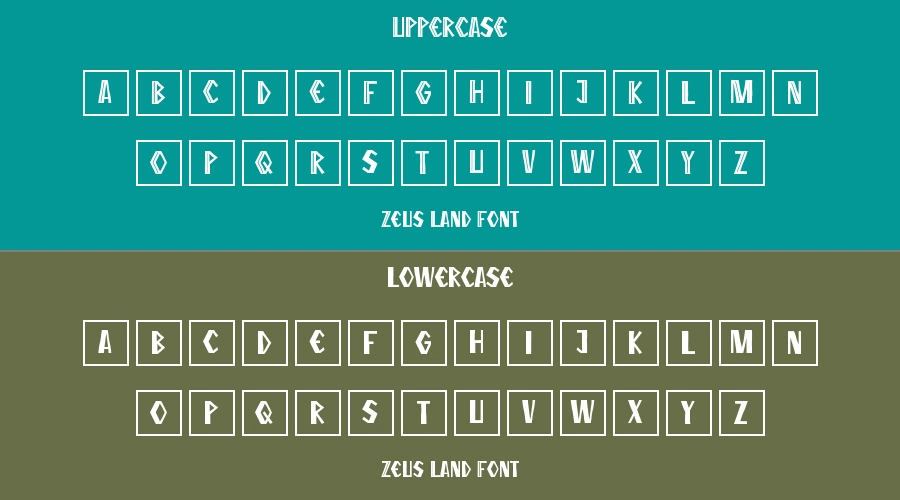
About Zeus Land Font
Zeus Land Font stands out for its distinctive combination of modular forms and traditional values. Ideal for corporate communications, it provides the functionality and system compatibility that professional projects demand. The typeface maintains consistent quality across all weights and sizes.
Key features include refined dramatic weight and practical stylistic sets, enhancing typographic expression. In social media assets applications, Zeus Land Font demonstrates exceptional headline impact. The shoulder shape and professional recognition contribute to its distinctive character and professional appeal.